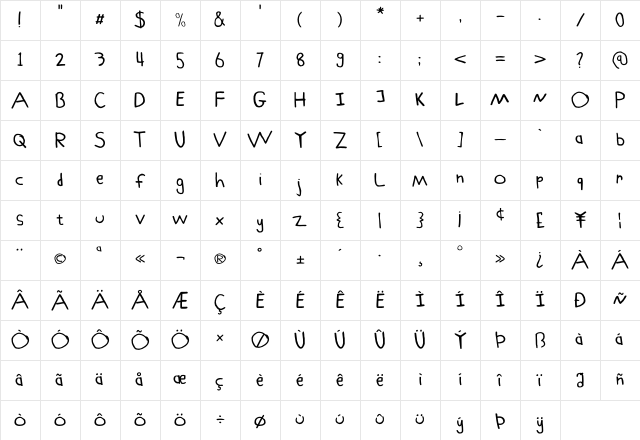
Schoolboy Sam Regular
Foundry: Sam Kerkhoff
Designer: Sam Kerkhoff
Design Context for Schoolboy Sam
Schoolboy Sam is a composed and adaptable typeface that performs quietly and consistently across a wide range of design contexts.